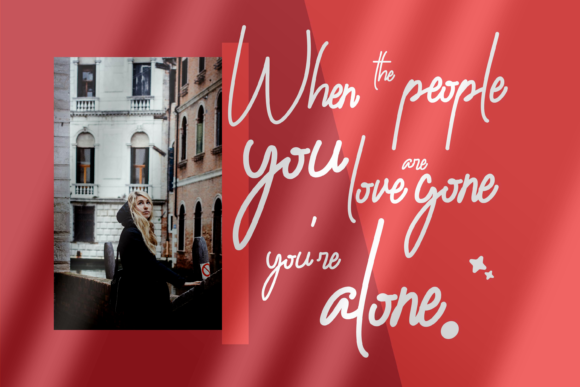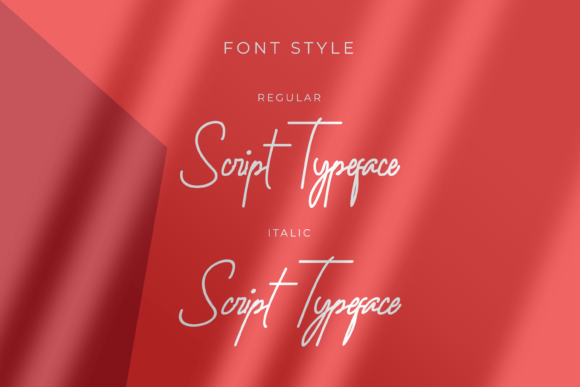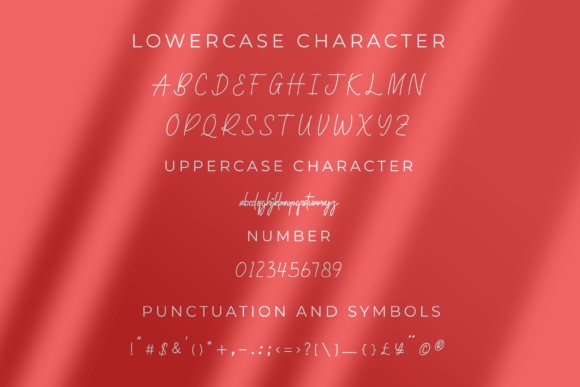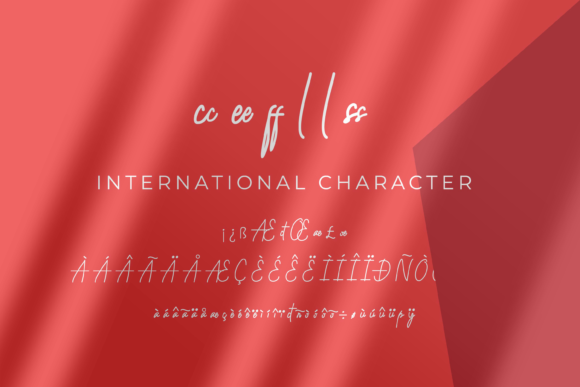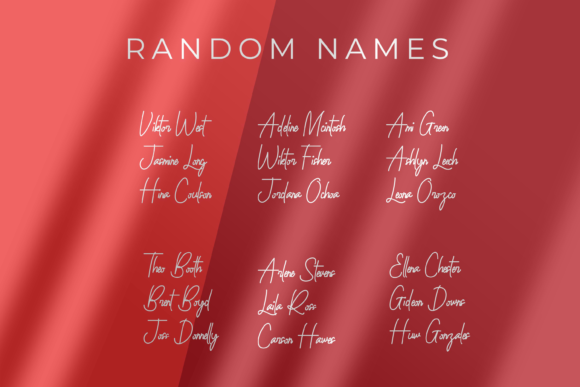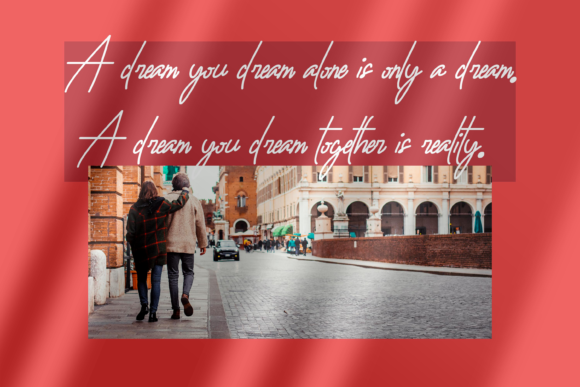
Introducing Castila Signature Font: Elevate Your Designs with a Touch of Luxury
In the world of typography, a well-crafted font can make all the difference in transforming a design from ordinary to extraordinary. For designers and crafters seeking to infuse their projects with a premium, signature taste, Castila Signature Font is an impressive handwritten font that looks so unique and modern. This typeface is the perfect choice for homeware designs, branding projects, photography, special events, and other luxury projects that demand a high-end aesthetic.
What Makes Castila Signature Font Stand Out?
Castila Signature Font boasts a distinctive, handwritten style that exudes elegance and sophistication. Its unique letterforms are carefully crafted to convey a sense of luxury and refinement, making it an ideal choice for designers who want to add a touch of high-end flair to their work. Whether you’re creating branding materials, invitations, or packaging, Castila Signature Font is sure to make a lasting impression.
Key Features of Castila Signature Font
- Unique and Modern Design: Castila Signature Font features a one-of-a-kind, handwritten design that’s both modern and timeless.
- High-End Aesthetic: This typeface is perfect for luxury projects, including homeware designs, branding projects, photography, and special events.
- Versatile: Castila Signature Font can be used for a wide range of design applications, from digital projects to print materials.
- Elegant and Sophisticated: The font’s elegant letterforms and refined lines make it perfect for designs that require a touch of sophistication.
Use Cases for Castila Signature Font
Castila Signature Font is an incredibly versatile typeface that can be used in a variety of design applications. Here are some examples of how you can use this font to elevate your designs:
- Branding Projects: Use Castila Signature Font to create luxurious branding materials, such as logos, business cards, and letterheads.
- Homeware Designs: Add a touch of elegance to your homeware designs, including packaging, labels, and advertisements.
- Photography: Use Castila Signature Font to create stunning photo captions, watermarks, or other graphical elements.
- Special Events: Create beautiful invitations, programs, and other event materials with Castila Signature Font.
Tips for Using Castila Signature Font
To get the most out of Castila Signature Font, here are some tips to keep in mind:
- Use it Sparingly: Castila Signature Font is a statement font, so use it sparingly to avoid overwhelming your design.
- Pair it with Neutral Fonts: Pair Castila Signature Font with neutral fonts to create a beautiful contrast and add visual interest to your design.
- Experiment with Colors: Try out different colors and textures to see how they interact with Castila Signature Font.
Castila Signature Font is a unique and modern handwritten font that’s perfect for designers and crafters seeking to add a touch of luxury to their projects. With its elegant letterforms, refined lines, and high-end aesthetic, this typeface is sure to elevate your designs and make a lasting impression. Whether you’re working on branding projects, homeware designs, photography, or special events, Castila Signature Font is an excellent choice for anyone looking to add a premium signature taste to their work.